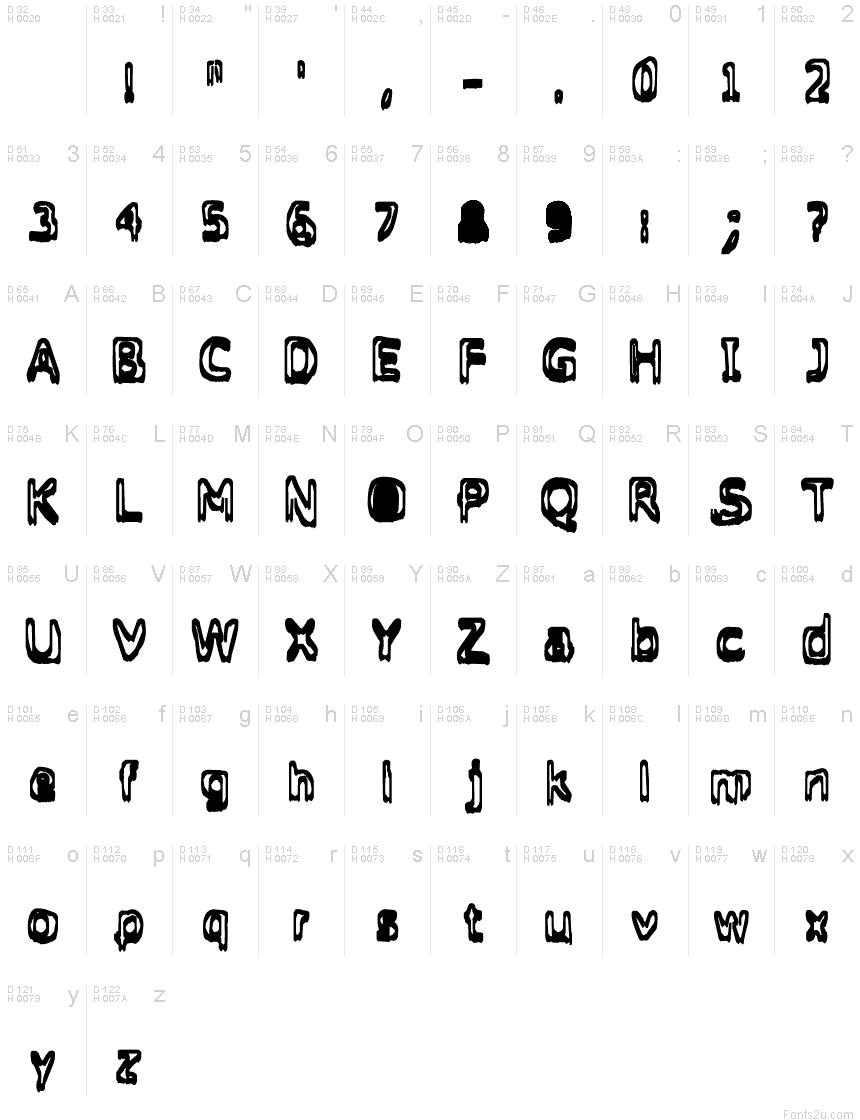
Grasping
Grasping font is a free distorted display font that looks like it’s crawling right off the page. Thick, inky shapes swell and pinch as if the letters were dragged through wet paint, while the edges feel jagged and restless. The rhythm is chaotic but still readable, giving your words a raw, unsettling energy that feels more like a scrawl on a cellar wall than a line of type.
Using Grasping, you can push horror posters, Halloween party flyers, escape room branding, metal or punk band logos, game titles, and eerie YouTube thumbnails into truly creepy territory. This free font works best big and bold, where its warped silhouettes can breathe. Pair it with a plain, narrow sans serif for supporting text to keep the design legible while Grasping does the screaming.